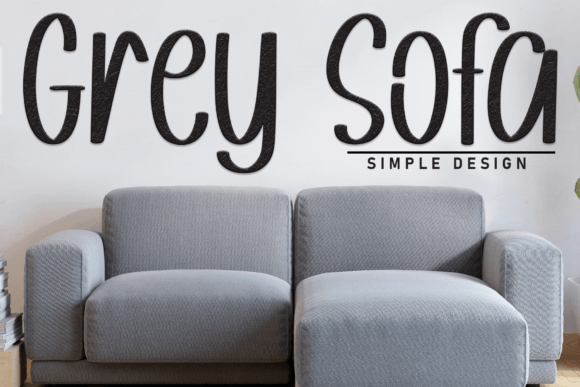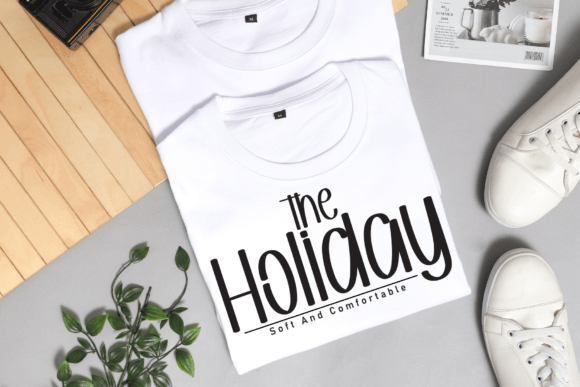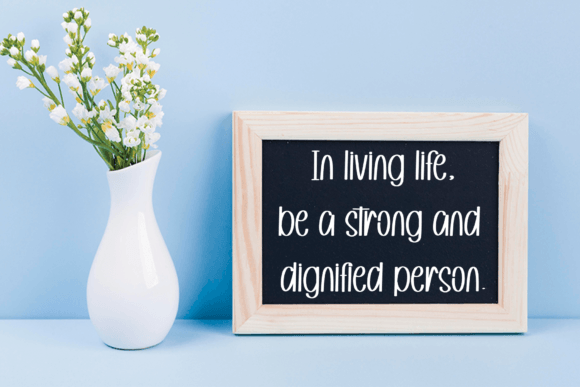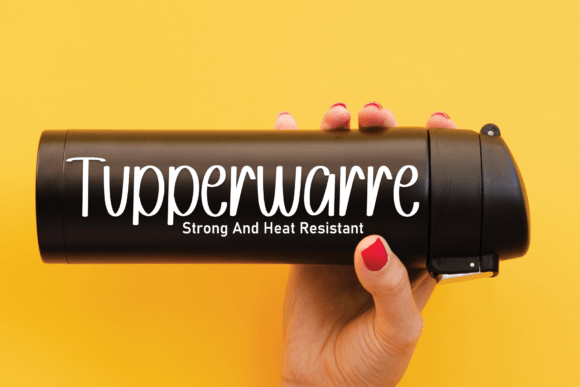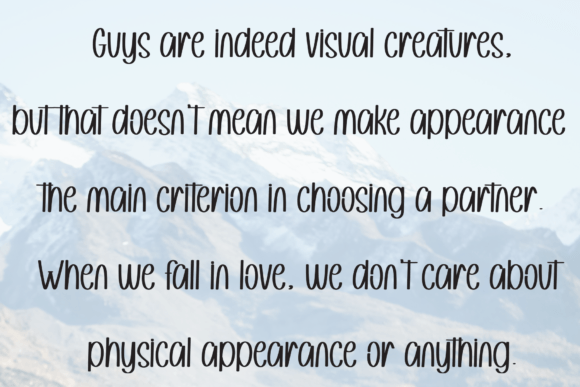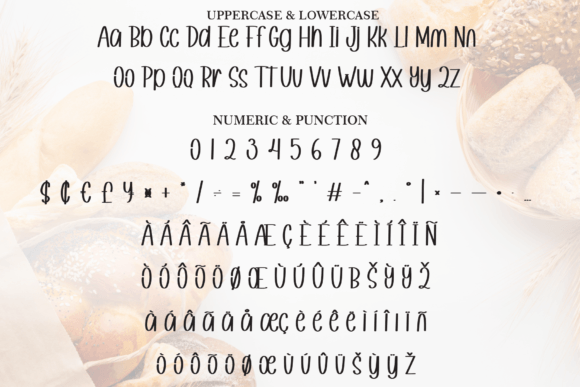
Bread Font: The Sweet and Friendly Handwritten Display Font
Are you looking for a font that can add a touch of warmth and friendliness to your designs? Look no further than the Bread Font! This sweet and friendly handwritten display font is perfect for creating eye-catching wedding invitations, cards, and other designs that require a fun and playful touch.
What is Bread Font?
Bread Font is a modern handwritten display font that is designed to bring a sense of joy and whimsy to your designs. With its cute and fun lettering style, this font is ideal for creating designs that require a personal touch. Whether you’re a designer, crafter, or DIY enthusiast, Bread Font is a great addition to your font collection.
Key Features of Bread Font
- Cute and Fun Design: Bread Font features a playful and charming lettering style that is sure to capture the attention of your audience.
- Handwritten Display Font: This font is designed to be used as a display font, making it perfect for headings, titles, and other design elements that require a bold and eye-catching font.
- Versatile and Flexible: Bread Font can be used for a wide range of design projects, from wedding invitations and cards to posters, flyers, and more.
- Easy to Read: Despite its playful design, Bread Font is easy to read and understand, making it perfect for designs that require a clear and concise message.
Uses of Bread Font
Bread Font is a versatile font that can be used for a wide range of design projects. Here are some ideas to get you started:
- Wedding Invitations: Add a touch of romance and whimsy to your wedding invitations with Bread Font.
- Cards and Stationery: Use Bread Font to create fun and playful cards, gift tags, and other stationery items.
- Posters and Flyers: Bread Font is perfect for creating eye-catching posters and flyers for events, promotions, and more.
- Social Media Graphics: Use Bread Font to create engaging social media graphics, such as Facebook posts, Instagram stories, and more.
Benefits of Using Bread Font
There are many benefits to using Bread Font in your designs. Here are a few:
- Adds a Personal Touch: Bread Font adds a personal and human touch to your designs, making them more relatable and engaging.
- Stand Out from the Crowd: With its unique and playful design, Bread Font can help your designs stand out from the crowd and grab the attention of your audience.
Tips for Using Bread Font
Here are a few tips for using Bread Font in your designs:
- Use it as a Display Font: Bread Font is designed to be used as a display font, so use it to create bold and eye-catching headings and titles.
- Experiment with Different Colors: Bread Font looks great in a range of colors, so experiment with different colors to find the one that works best for your design.
- Pair it with Other Fonts: Bread Font can be paired with other fonts to create a unique and interesting design.
Bread Font is a sweet and friendly handwritten display font that is perfect for adding a touch of warmth and friendliness to your designs. With its cute and fun design, versatile and flexible nature, and easy-to-read style, Bread Font is a great addition to any designer’s font collection. Whether you’re creating wedding invitations, cards, posters, or social media graphics, Bread Font is sure to bring a smile to your audience’s face.